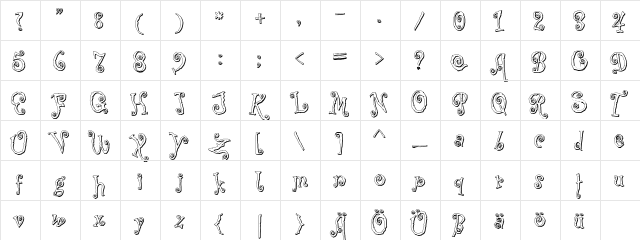
Corps-Script-Shadow Regular
| Foundry | Otto Maurer |
| Designer | Otto Maurer |
Design Context for Corps-Script-Shadow Typeface
Corps-Script-Shadow flows with the natural rhythm of handwritten lettering, making it ideal for designs that call for warmth and personal expression.
Font Pairing: Combine Corps-Script-Shadow with a simple geometric sans for maximum contrast — the tension between flowing curves and clean structure is a classic typographic pairing.
Pro Tip: Pair Corps-Script-Shadow with a clean sans-serif for supporting text. The contrast between fluid script and geometric structure creates an elegant typographic hierarchy.